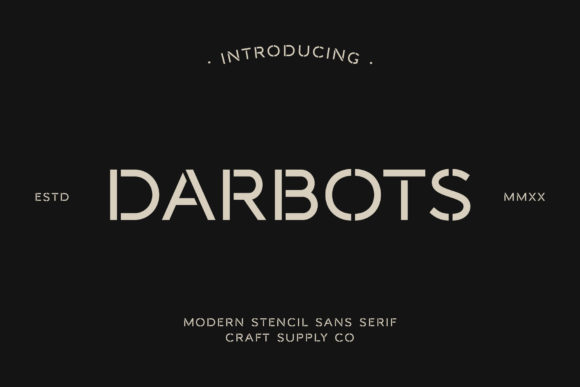
Step into the realm of typography and let Darbots, a sans serif font, captivate your senses. An artistic fusion of tradition and modernity, Darbots is not just a font; it's an artistic expression that elevates your designs with grace and sophistication.
Journey through the world of Darbots, where beauty and functionality intertwine. Its well-balanced Latin details, laden with distinctive contrasts, impart a timeless elegance to your creations. Experience the sheer joy of crafting designs that speak volumes, leaving an indelible mark on your audience.
Unleash your creativity with Darbots, a font that adapts seamlessly to your every need. Its versatility knows no bounds, allowing you to effortlessly craft logos that exude authority, headlines that demand attention, and body text that invites readers to delve deeper into your content.
Darbots beckons you to redefine the boundaries of design. Its innate charm lends itself perfectly to a multitude of projects, from enchanting wedding invitations to captivating social media posts, from immersive website designs to thought-provoking marketing materials. Embrace the limitless possibilities that await you when you harness the power of Darbots.
With Darbots, the possibilities are as boundless as your imagination. Dive into a world of creative freedom, where your designs take center stage, leaving a lasting impression on all who encounter them. Embrace the allure of Darbots and witness the transformation of your ordinary designs into masterpieces that captivate and inspire.